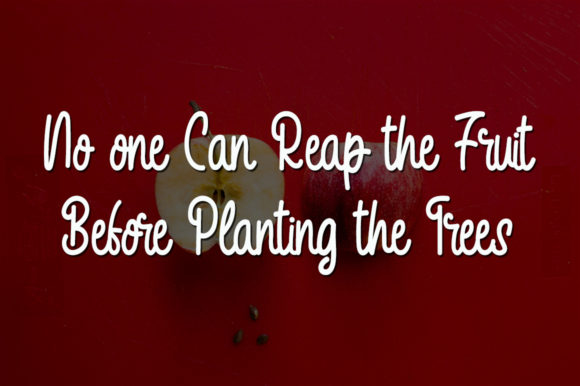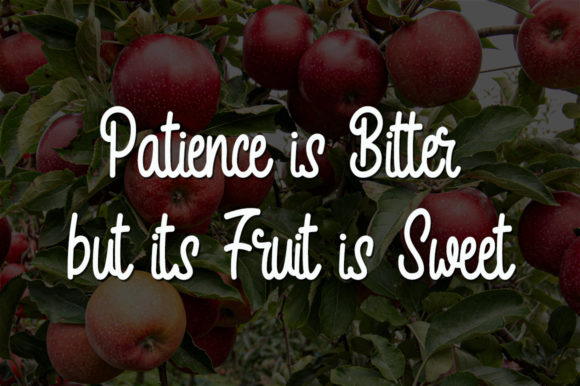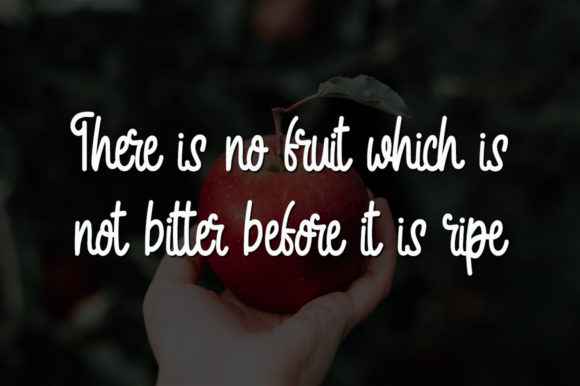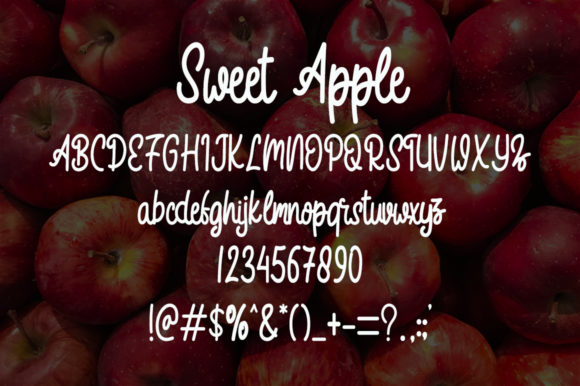
Sweet Apple Font
About Sweet Apple Font
Sweet Apple is a friendly and friendly handwritten font. Its natural and unique style makes it incredibly fitting to a large pool of designs.